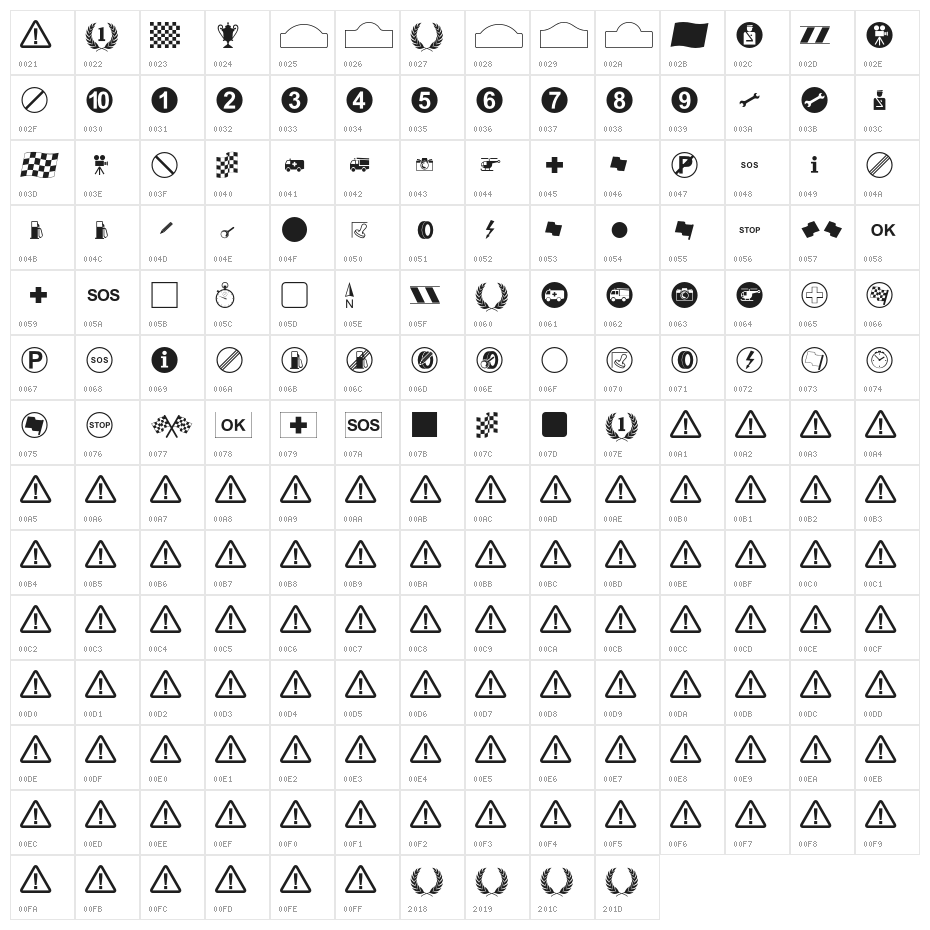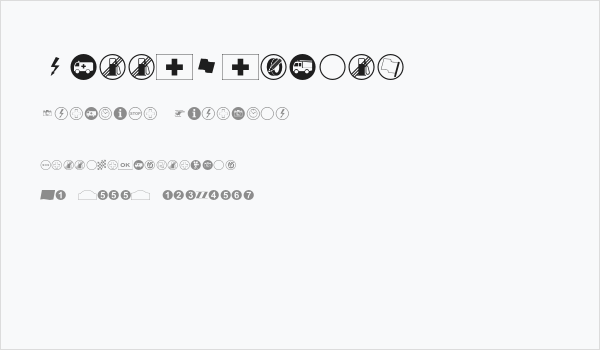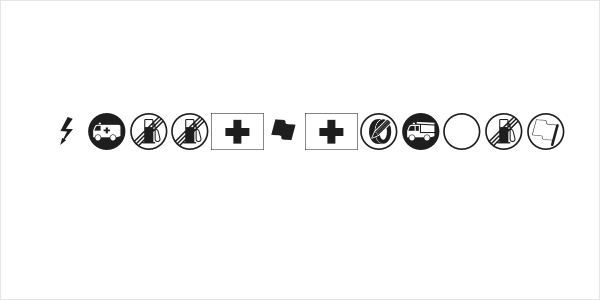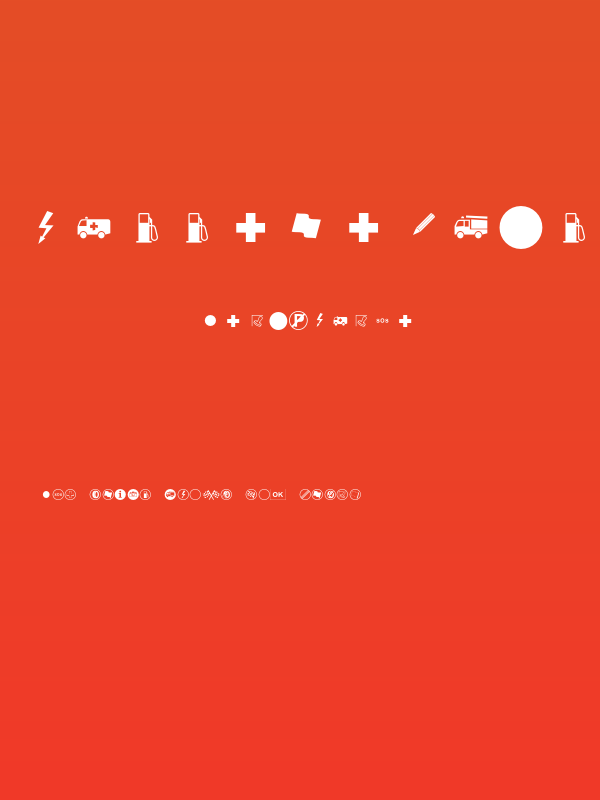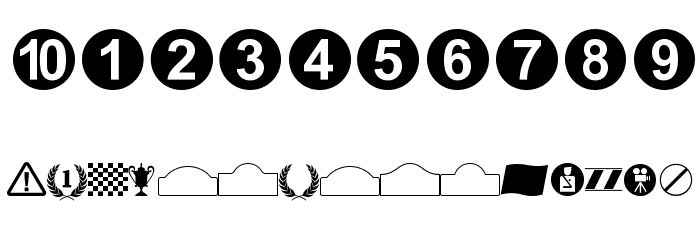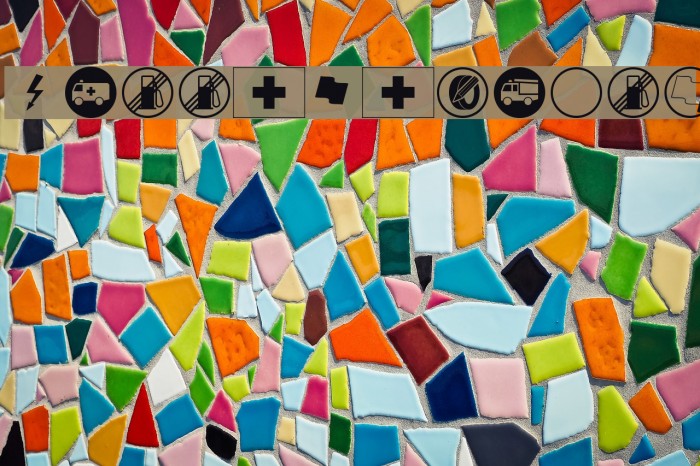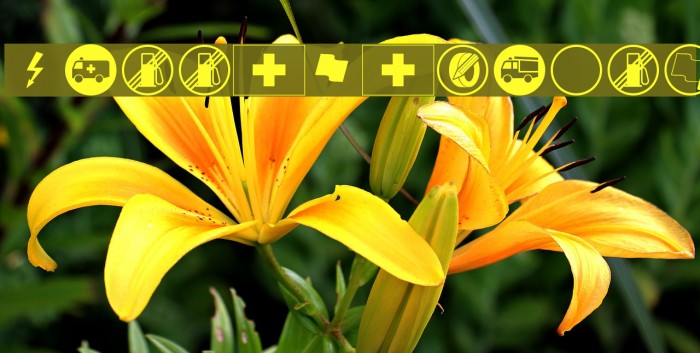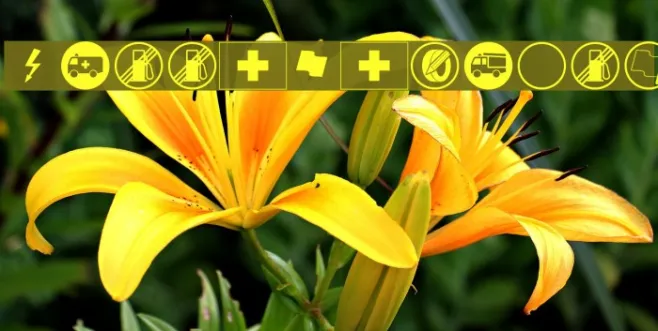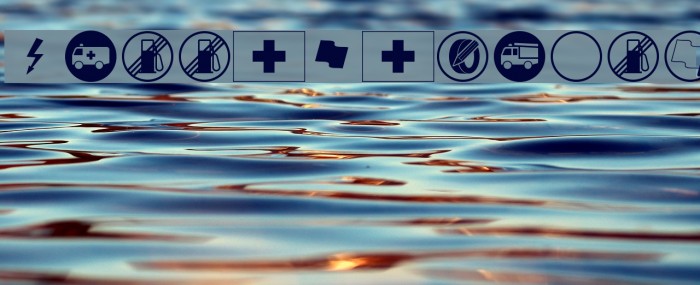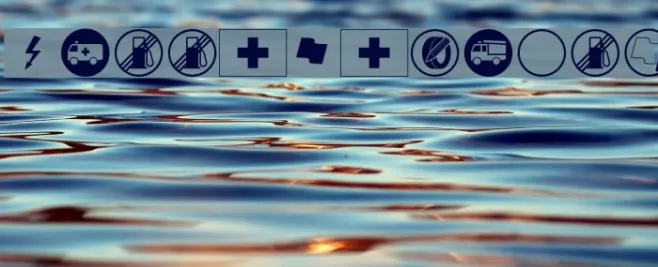
RallySymbols Font
RallySymbols Description
A collection of bold, high-contrast pictograms and symbols related to rally racing, including vehicles, flags, numbers, emergency icons, and racing elements. The icons are primarily monochrome, with both filled and outlined styles, and are designed for clear legibility and instant recognition.
| Overall Style | Modern, Functional, Pictographic |
| Use Case | Signage, Icons, Infographics, Labels |
| Proposed Projects | Motorsport event signage, race maps, instruction manuals, dashboards, infographics, wayfinding systems. |